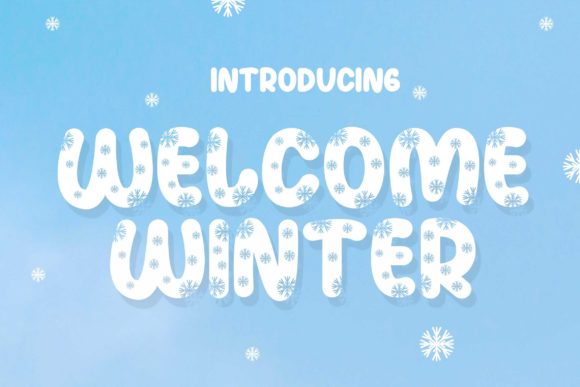
Journey into the heart of winter's enchantment with Welcome Winter Font, a captivating decorative and display duo font that will ignite your creativity and make your designs sparkle with festive cheer. Let the magic of the season flow through your fingertips as you craft stunning Christmas cards, invitations, gift tags, and social media posts that exude warmth and joy.
Adorn your winter projects with a touch of whimsy and charm. Create eye-catching posters, flyers, and banners that herald the arrival of the most wonderful time of the year. Bring life to your children's designs with a font that captures the boundless imagination and innocence of the season. Let your storybooks and other creative endeavors transport readers to a winter wonderland where dreams come true.
Welcome Winter Font is more than just a font; it's a gateway to a world of limitless possibilities. Step into the enchanting realm of winter with this versatile and captivating font and watch your designs transform into masterpieces that evoke the beauty and wonder of the season. Embrace the magic today and let your creativity soar!